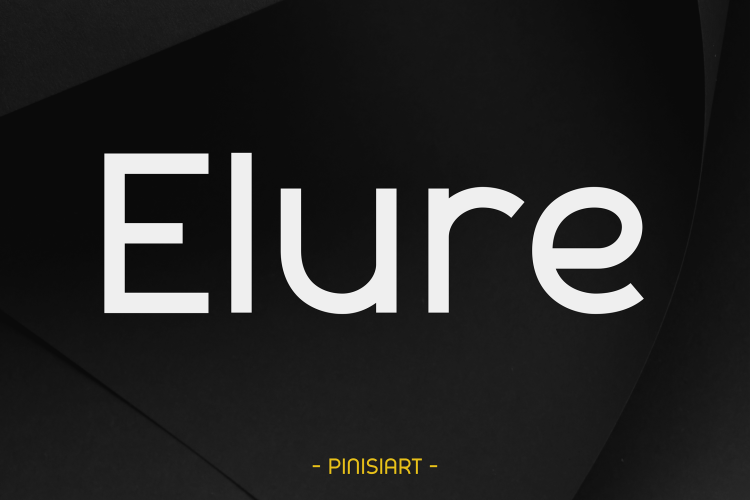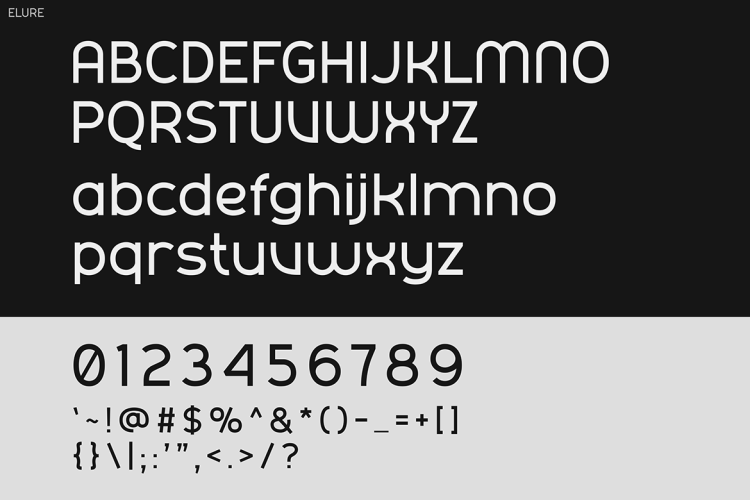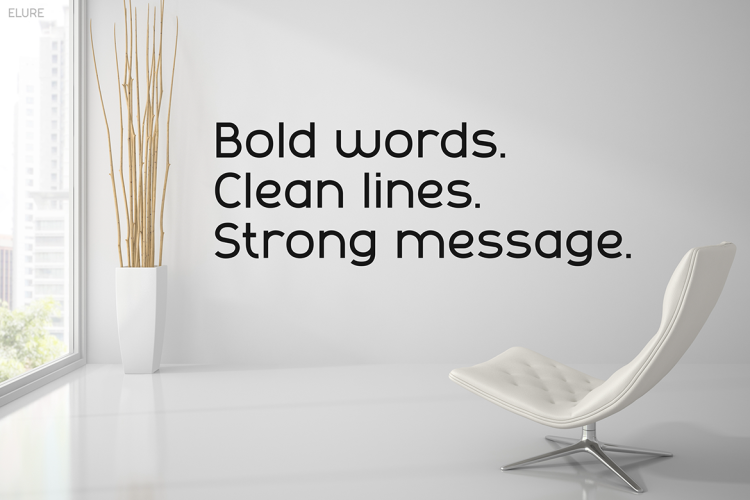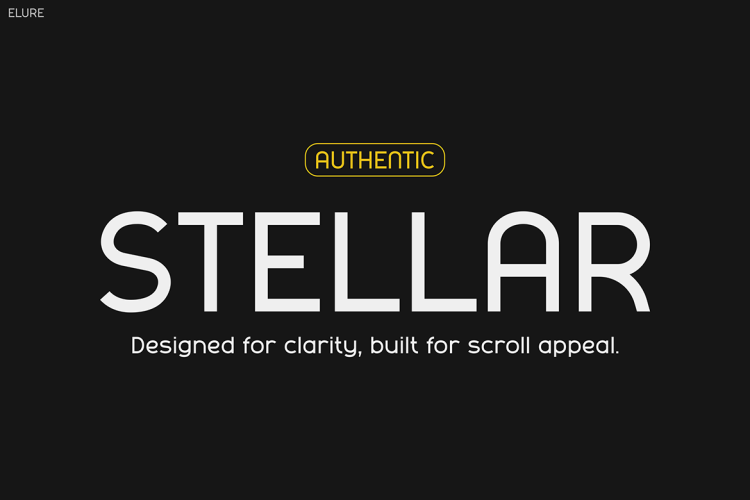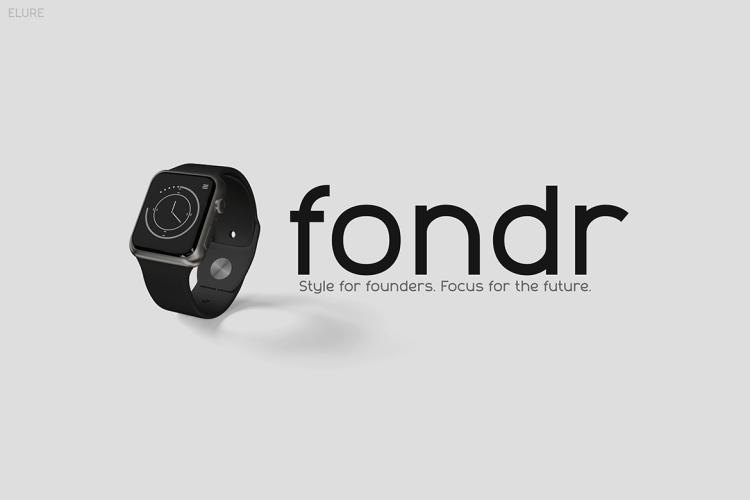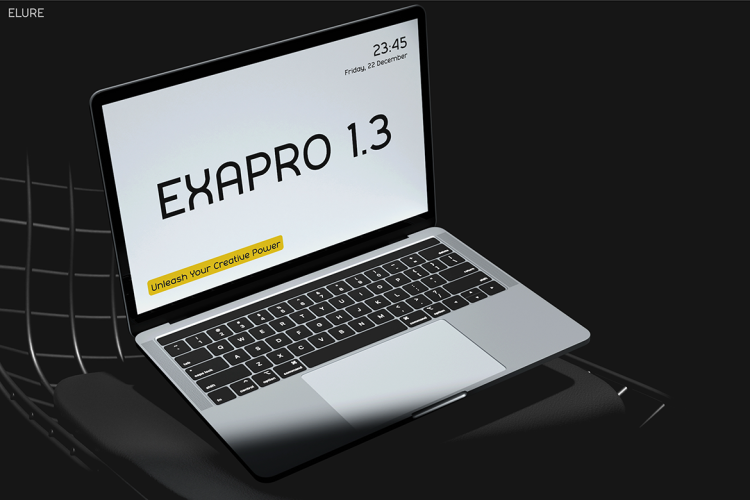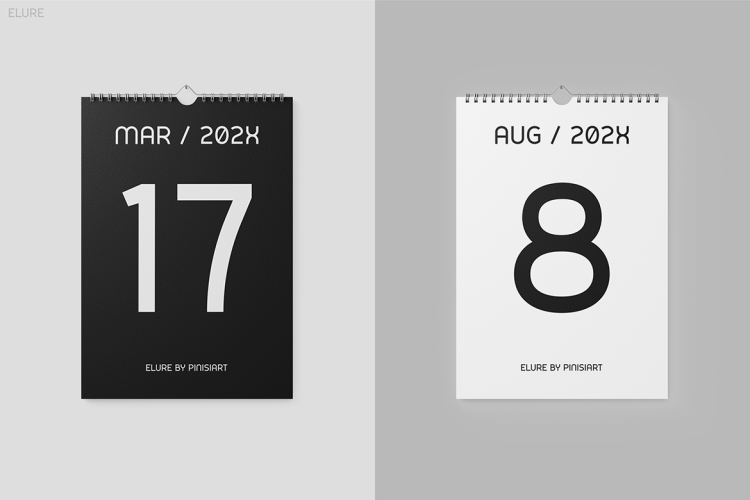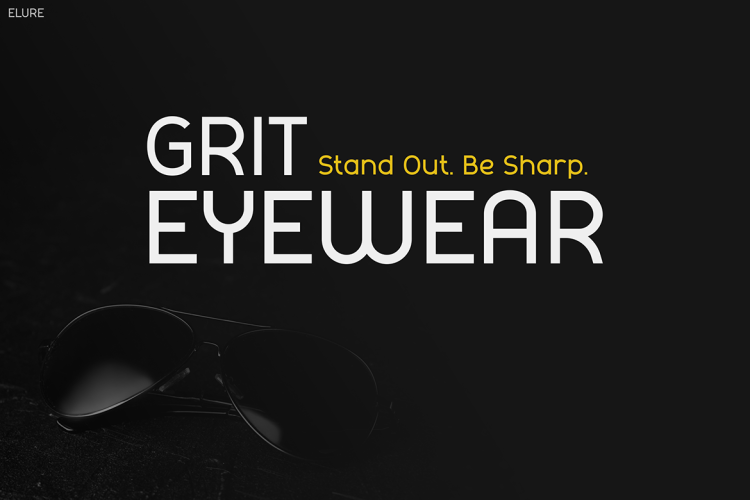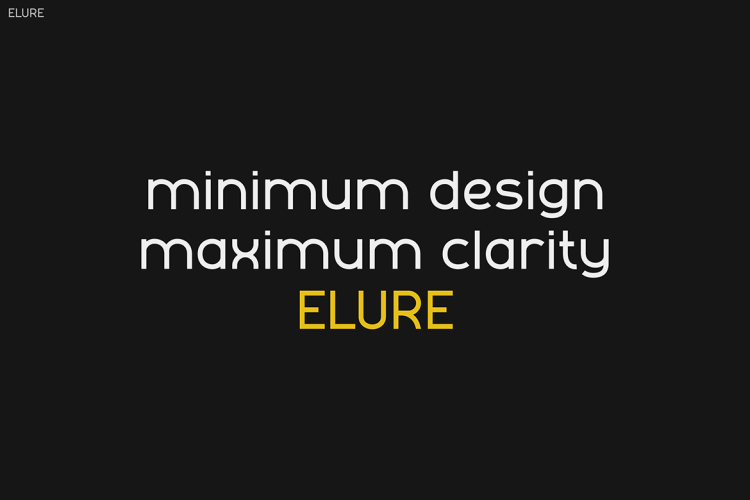
Instagram Font ELURE: A Bold Statement in Digital Design
Instagram Font ELURE is the perfect blend of clarity and personality. It features smooth curves, clean lines, and balanced spacing. Therefore, it instantly grabs attention in both digital and print media.
What makes this font unique is its futuristic yet friendly tone. Each letterform is designed with precision, but with soft edges that make it approachable. As a result, it offers both visual appeal and excellent readability.
Moreover, the font performs well in various use cases. You can use it in bold uppercase to create strong visual hierarchy. Alternatively, lowercase styles bring a more casual, modern feel. In addition, it maintains legibility across different screen sizes and formats.
Whether you’re designing an Instagram story, a web banner, or an app UI, ELURE delivers. It is stylish, yet subtle. It is functional, yet full of personality. Thatโs what makes it such a standout choice for contemporary visual content.
Perfect for Designers, Creatives, and Brands That Want to Stand Out
Instagram Font ELURE is ideal for creatives who want to make a clear and lasting impact. For instance, designers and digital marketers can use it to craft engaging content that feels fresh and modern. In particular, itโs a great fit for Instagram-focused creators looking for aesthetic consistency.
Furthermore, it supports brands that value simplicity and innovation. Startups, creative agencies, and tech companies can all benefit from its clean, geometric appeal. It also works well for lifestyle brands that want to balance elegance and clarity.
In addition, ELURE enhances UI and UX design with a clean structure. It keeps layouts neat, while still feeling vibrant. Therefore, developers and product teams will find it useful for in-app headlines and navigation.
As a result, this font becomes a powerful design tool. It adapts well across contextsโbringing both edge and warmth where needed.
Let Your Message Speak Louder
If you want your words to make a difference, this font is your ally. Instagram Font ELURE is more than just stylishโitโs smart, flexible, and modern. So, go aheadโuse it to make your brand, message, or idea truly unforgettable.